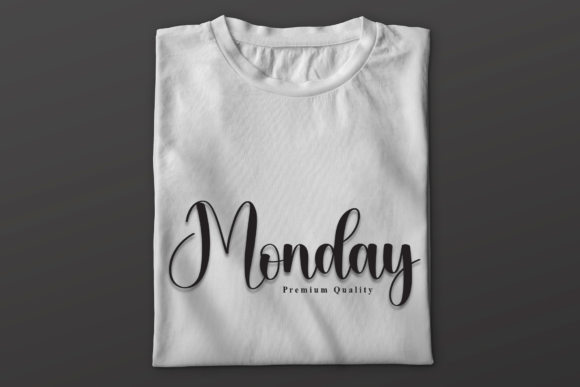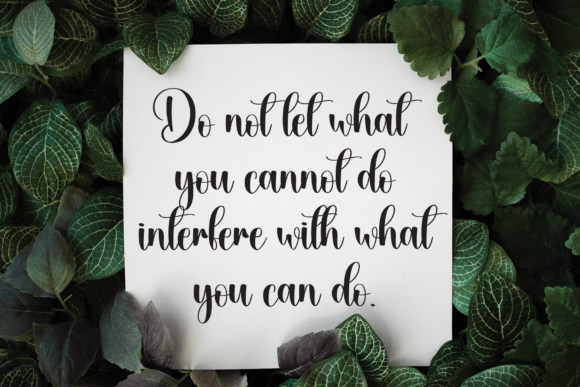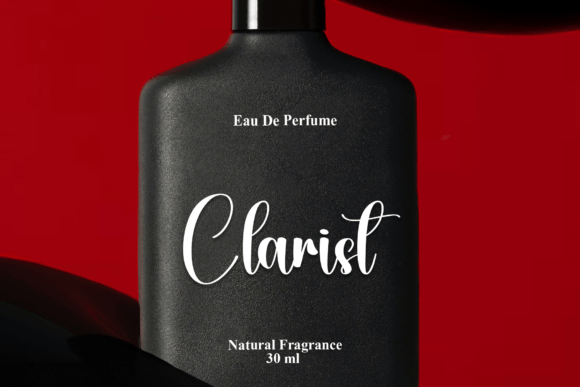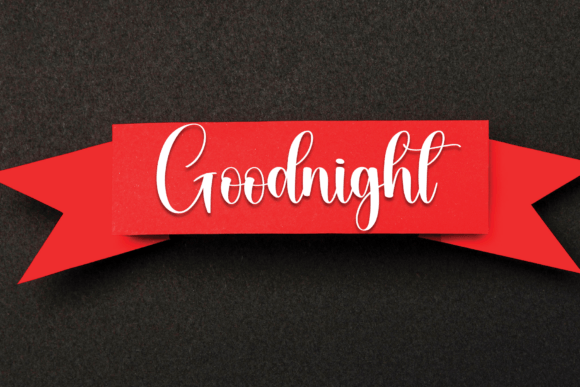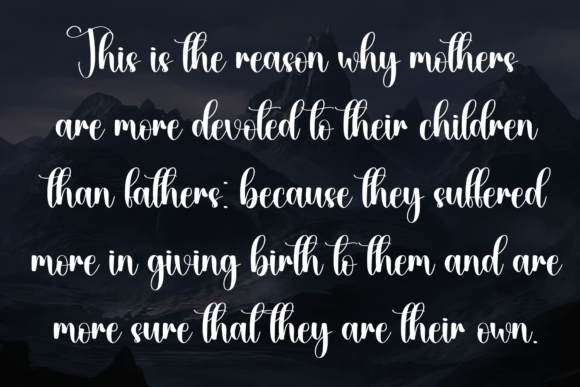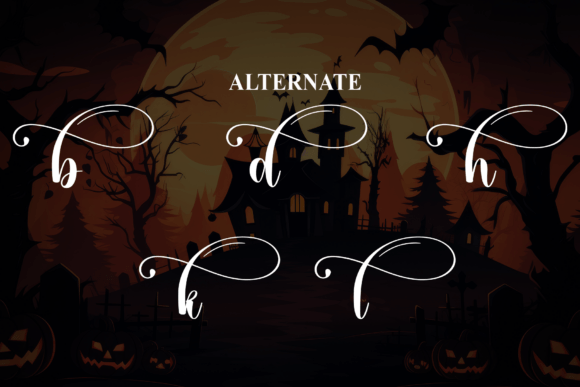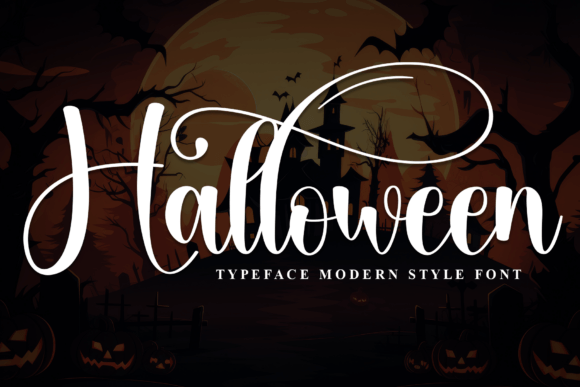
Unleash the Spooky Spirit: A Comprehensive Guide to Halloween Font
Halloween is just around the corner, and with it comes the excitement of creating spooky and fun designs for various projects. Whether you’re a designer, crafter, or DIY enthusiast, having the right font can make all the difference in bringing your ideas to life. That’s where the Halloween Font comes in – a sweet and friendly handwritten font that’s perfect for a wide range of designs. In this article, we’ll dive into the world of Halloween Font, exploring its features, uses, and tips on how to make the most of this versatile font.
What is Halloween Font?
Halloween Font is a unique and natural handwritten font that’s specifically designed to capture the essence of the spookiest time of the year. Its distinctive style makes it incredibly fitting for various designs, from invitations and party decorations to social media graphics and crafts. The font’s friendly and approachable feel ensures that it’s suitable for both kids and adults, making it perfect for family-friendly Halloween designs.
Key Features of Halloween Font
• Natural and Unique Style: Halloween Font boasts a one-of-a-kind, handwritten style that’s both natural and eye-catching.
• Versatility: This font is incredibly versatile and can be used for a wide range of designs, from simple to complex.
• Easy to Read: Despite its unique style, Halloween Font remains easy to read, making it perfect for body text and headings.
Uses of Halloween Font
Halloween Font is an incredibly versatile font that can be used for various design projects, including:
• Halloween Invitations: Create spooky and fun invitations for Halloween parties, trick-or-treat events, or haunted houses.
• Party Decorations: Use Halloween Font to create eye-catching party decorations, such as banners, garlands, and signs.
• Social Media Graphics: Design engaging social media graphics, including Facebook posts, Instagram stories, and Twitter headers.
• Crafts and DIY Projects: Halloween Font is perfect for various craft and DIY projects, such as making Halloween-themed cards, gift tags, and decorations.
Tips for Using Halloween Font
To make the most of Halloween Font, here are some valuable tips:
• Experiment with Colors: Halloween Font looks great in various colors, so don’t be afraid to experiment with different color schemes to match your design.
• Mix and Match with Other Fonts: Combine Halloween Font with other fonts to create visually appealing and unique designs.
• Pay Attention to Font Size: Ensure that your font size is readable and visually appealing, especially when using Halloween Font for body text.
• Add Texture and Patterns: Add texture and patterns to your design to give it a more organic and spooky feel.
Halloween Font is an exceptional handwritten font that’s perfect for designers, crafters, and DIY enthusiasts looking to create spooky and fun designs for Halloween. Its natural and unique style makes it incredibly versatile, and with the right tips and tricks, you can unleash your creativity and bring your ideas to life. So, get creative, and let Halloween Font be the perfect companion for your spooky and friendly designs!